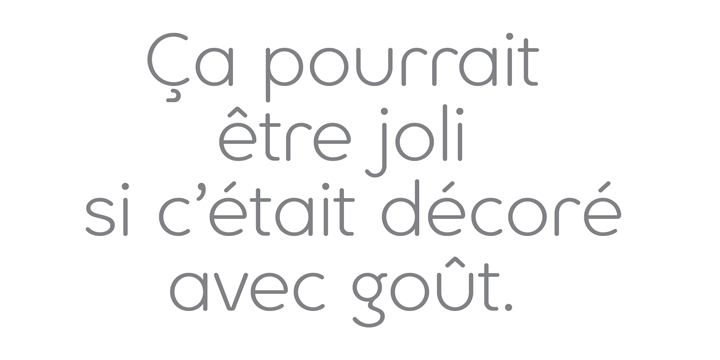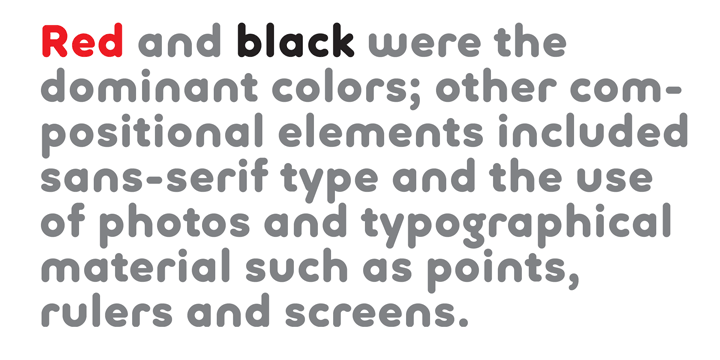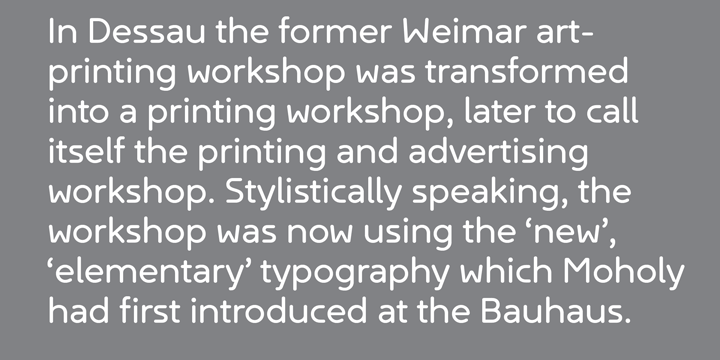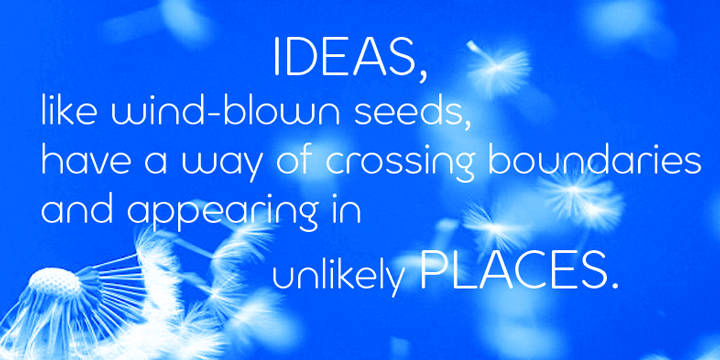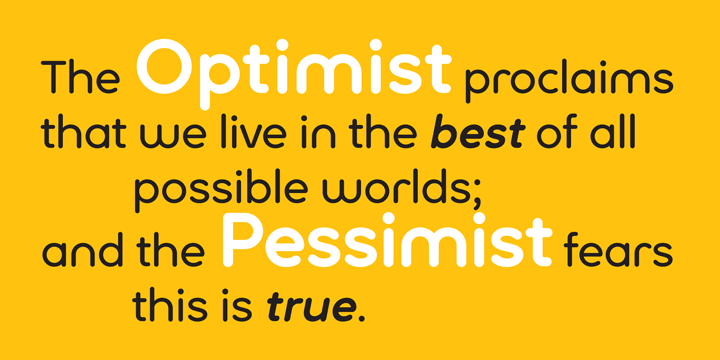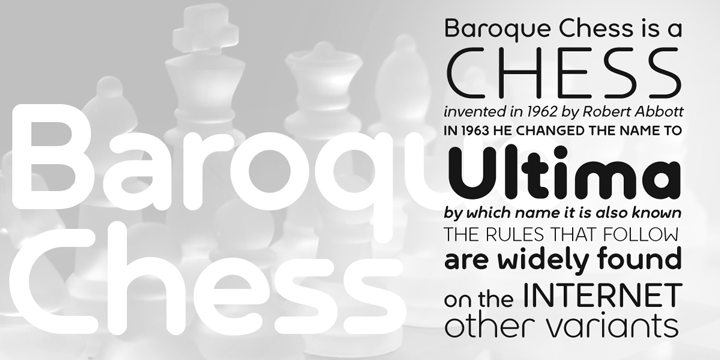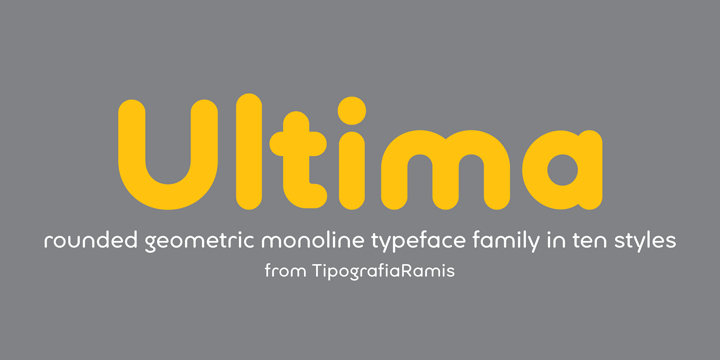
Ultima is a rounded geometric monoline typeface family, built in ten styles. The typeface is ideal for use in display sizes, though is quite legible in text.
Ultima Light
Ultima Light Italic
Ultima
Ultima Italic
Ultima Bold
Ultima Bold Italic
Ultima Black
Ultima Alt Light
Ultima Alt
Ultima Alt Bold